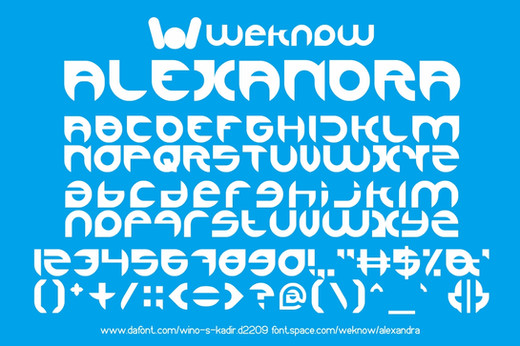
i listen to spider song fro mew, this is the very cool song, they ever come to Indonesia my homeland, and bring this song, im with thousand people singing this song, you can visit this link to know mew song spider [link]i dedicate this font for geno, because he like spider very much, well geno hope you like it
and this for all of you too my friend, i hope you can use it for any kind stuff of graphic that need this style spider font